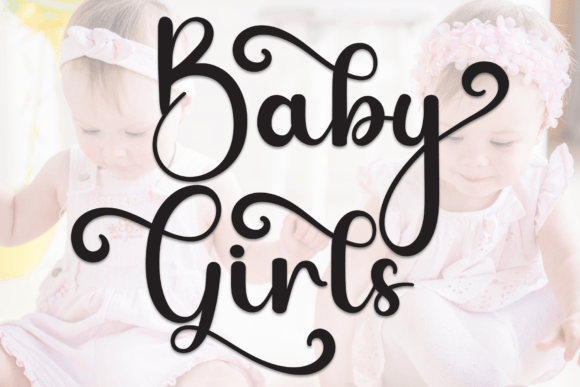
Do you ever find yourself sitting in front of your computer, staring blankly at a blank page, waiting for inspiration to strike? This is where I was when I stumbled upon the Baby Girl Font – a charming, handwritten display font that perfectly captured the warmth and friendliness I was looking for.
This delightful typeface is designed to add a touch of whimsical fun to any project, from wedding invitations to card designs. With its adorable and lighthearted vibe, the Baby Girl Font effortlessly draws the eye and makes every word a captivating joy to behold. As a designer, you’ll appreciate the versatility and uniqueness this font brings to your work, allowing you to stand out from the crowd and create truly special pieces.
Baby Girl Font Key Features
- Font Family: Baby Girl Font is a script font designed to resemble handwritten text.
- Unique Characteristics: The font features delicate, cursive strokes and flourishes, making it perfect for creating a whimsical and feminine look.
Baby Girl Font Review
I recently had the chance to work with the “Baby Girl Font” and here’s my honest take on it.
- Cute and playful feel: The font has a lovely, whimsical vibe that’s perfect for baby-related designs, such as nursery decor, baby clothes, and kids’ books.
- Good legibility: The font is clear and easy to read, even at smaller sizes, which is great for longer text blocks.
- Customization options: The font comes with a range of customization options, including color, size, and style, which gives designers a lot of flexibility.
- Not suitable for formal designs: The font’s playful feel may not be suitable for more formal designs, such as business cards or resumes.
- Limited versatility: While the font is great for baby-related designs, it may not be as versatile for other types of projects.
Overall, the “Baby Girl Font” is a lovely font that’s perfect for baby-related designs. While it may have some limitations, it’s a great choice for designers who need a cute and playful font for their projects.
Tips for Getting the Most Out of the Baby Girl Font
- Use the font in conjunction with pastel colors and floral patterns for a cohesive look.
- Choose a bold or cursive style for headings and titles.
- Experiment with different font sizes and combinations to create visual interest.
The Baby Girl Font is commonly used for:
- Baby shower invitations and decorations.
- Children’s party invitations and materials.
- Personalized gifts and stationery.
Alternatives to “Baby Girl Font” for Designers
Great Vibes is a beautiful, elegant script font perfect for creating a whimsical and feminine touch in designs. It features flowing connections and subtle flair at the ends of the letters, making it ideal for baby shower invitations, greeting cards, and other celebratory designs.
Compared to Baby Girl Font, Great Vibes is more refined and sophisticated, with a wider range of ligatures and a more complex letterform structure. While Baby Girl Font is more playful and cursive, Great Vibes has a more elegant, handwritten feel.
Alex Brush is a elegant, handwritten font that exudes a sense of sophistication and refinement. It’s perfect for creating high-end designs, such as luxury branding, invitations, and stationery. Its flowing connections and subtle flair at the ends of the letters make it ideal for creating a sense of movement and energy.
Compared to Baby Girl Font, Alex Brush is more formal and sophisticated, with a wider range of ligatures and a more complex letterform structure. While Baby Girl Font is more playful and cursive, Alex Brush has a more elegant, refined feel.